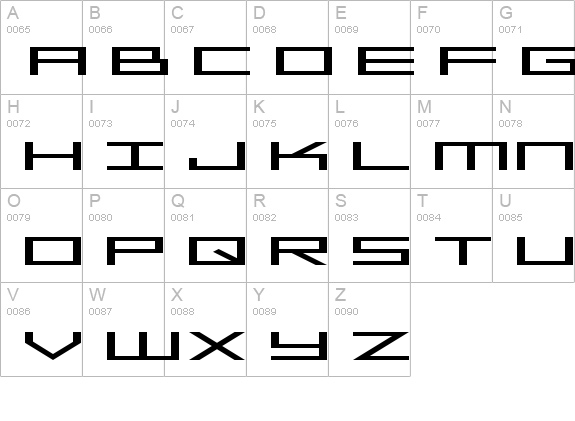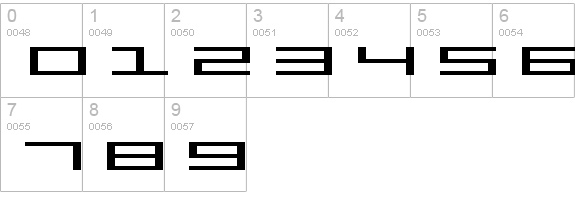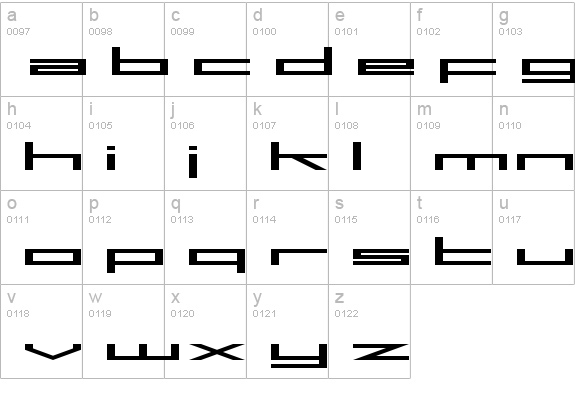
SF Square Head Extended Font Details
SF Square Head Extended is a distinctive, extended-width variant in the SF typeface family \xE2\x80\x94 well suited to design and typography projects.
SF Square Head Extended is a versatile and modern font that is perfect for adding a touch of sophistication to any project. With its clean lines and bold, square-shaped letterforms, this font is sure to make a statement. Its extended width gives it a unique and eye-catching appeal, making it suitable for a wide range of design purposes. This font is not only visually stunning, but it is also incredibly easy to read, making it ideal for both print and digital applications. Whether you are designing a logo, creating a poster, or crafting a website, SF Square Head Extended will bring your project to life. One of the best things about SF Square Head Extended is that it is available for free. You can easily download this font at FontsMarket.com, where it is readily accessible to all. This means that you can use this font for personal or commercial projects without having to worry about any licensing fees or restrictions. So why wait? Enhance your designs with SF Square Head Extended and unleash your creativity. Download this captivating font today and experience the freedom of unlimited design possibilities.